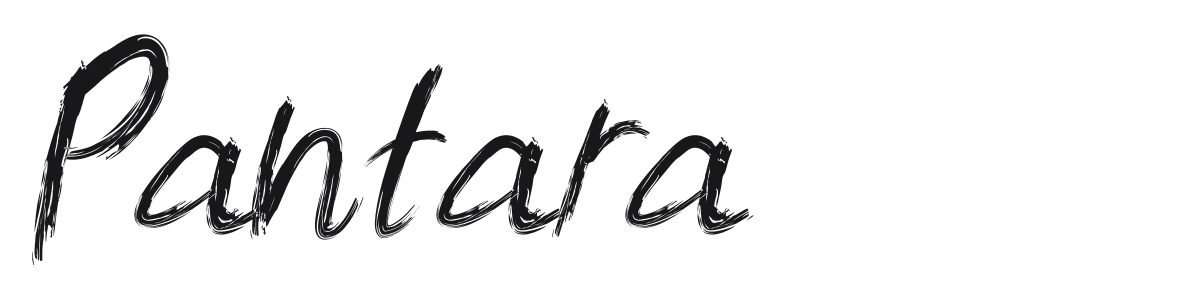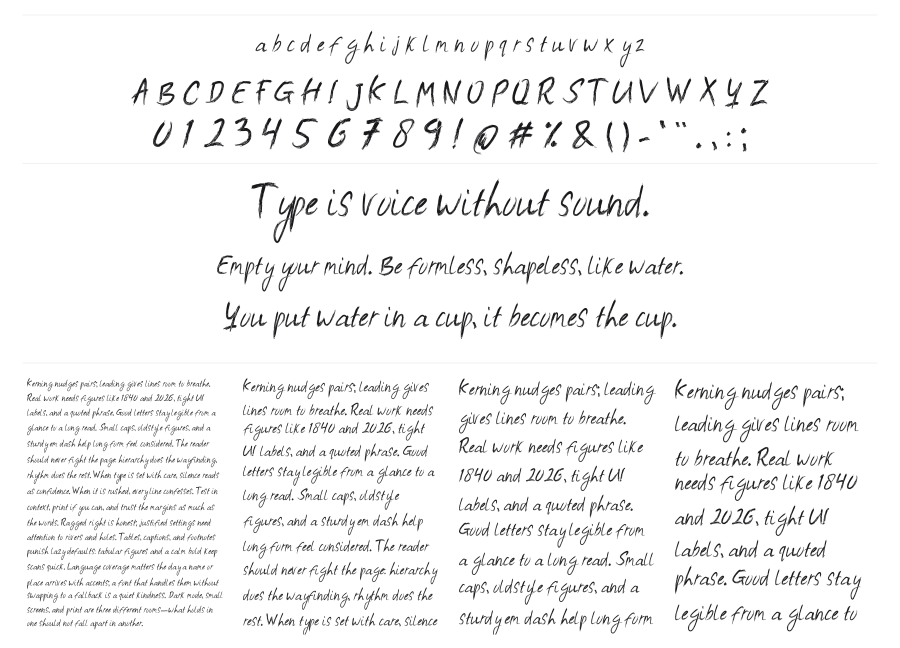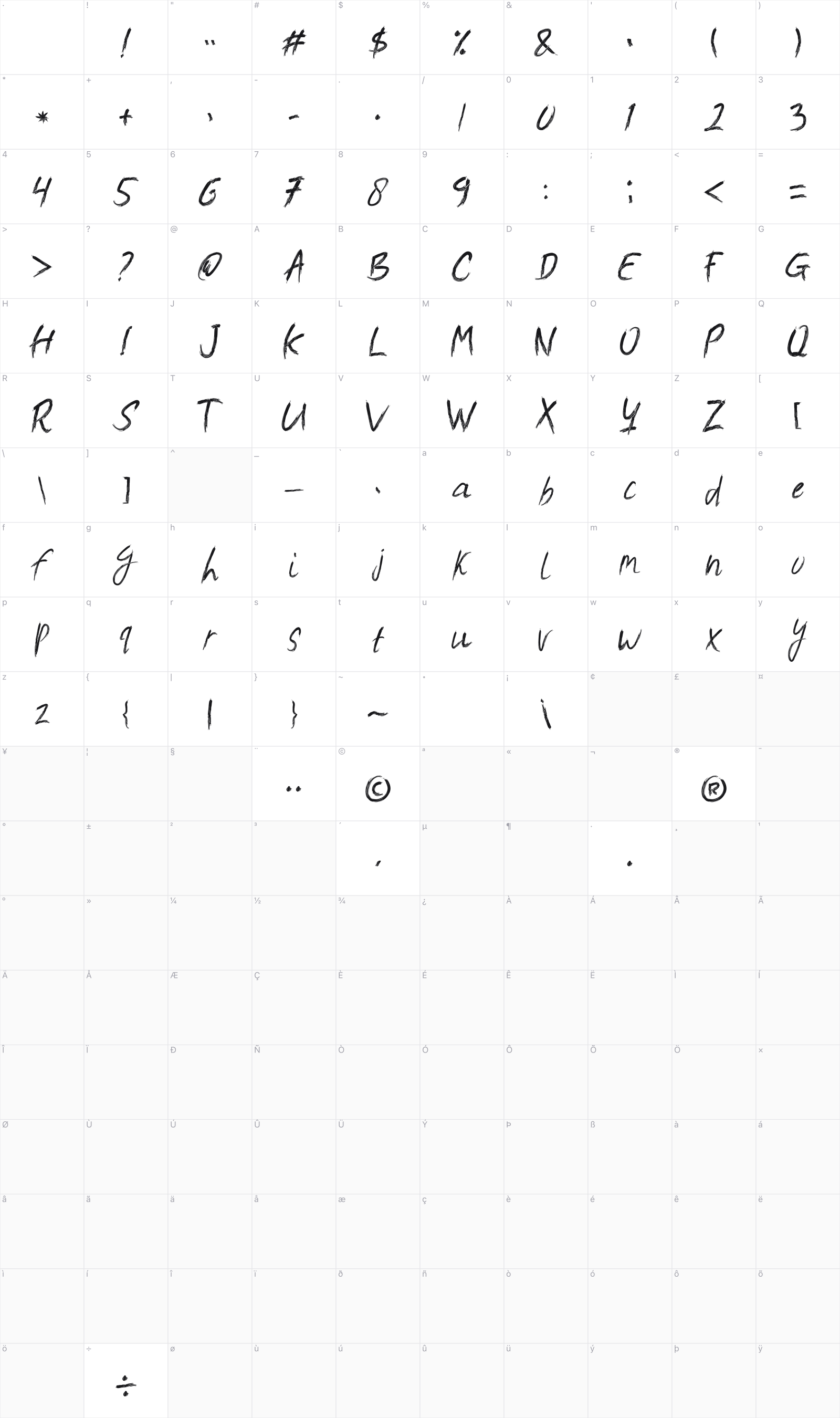
Pantara
Pantara is a raw, gestural brush script that looks like it was written with an ink-loaded bristle brush in one confident pass. The strokes are textured and rough-edged, with natural variation in weight and a slightly erratic rhythm that keeps it feeling alive. It works well at large display sizes where the ink texture and energy can read clearly.